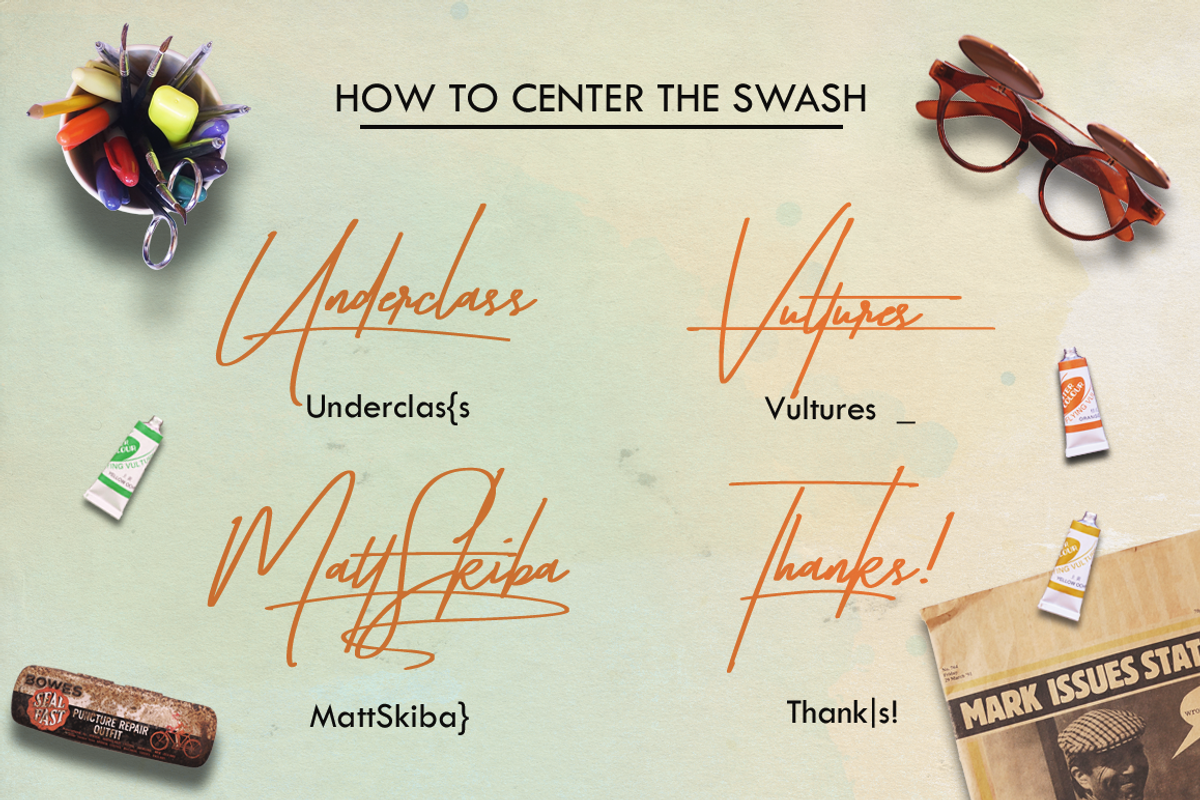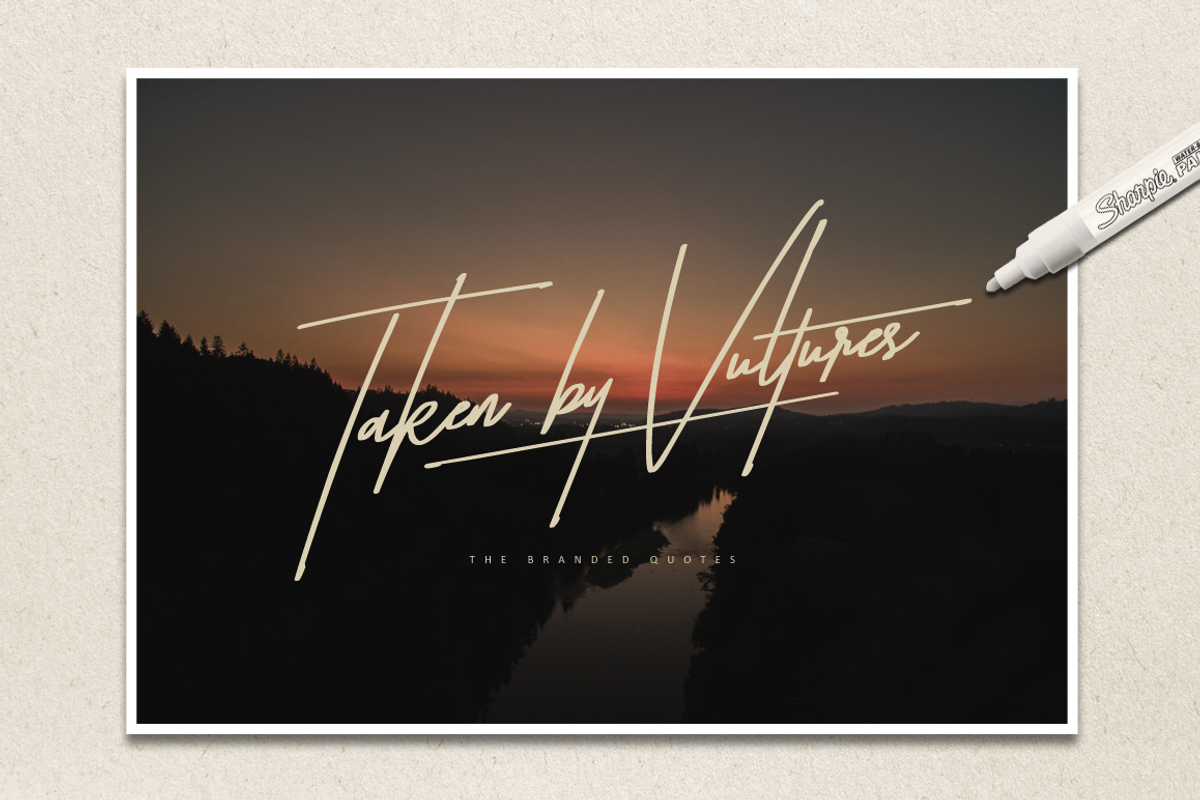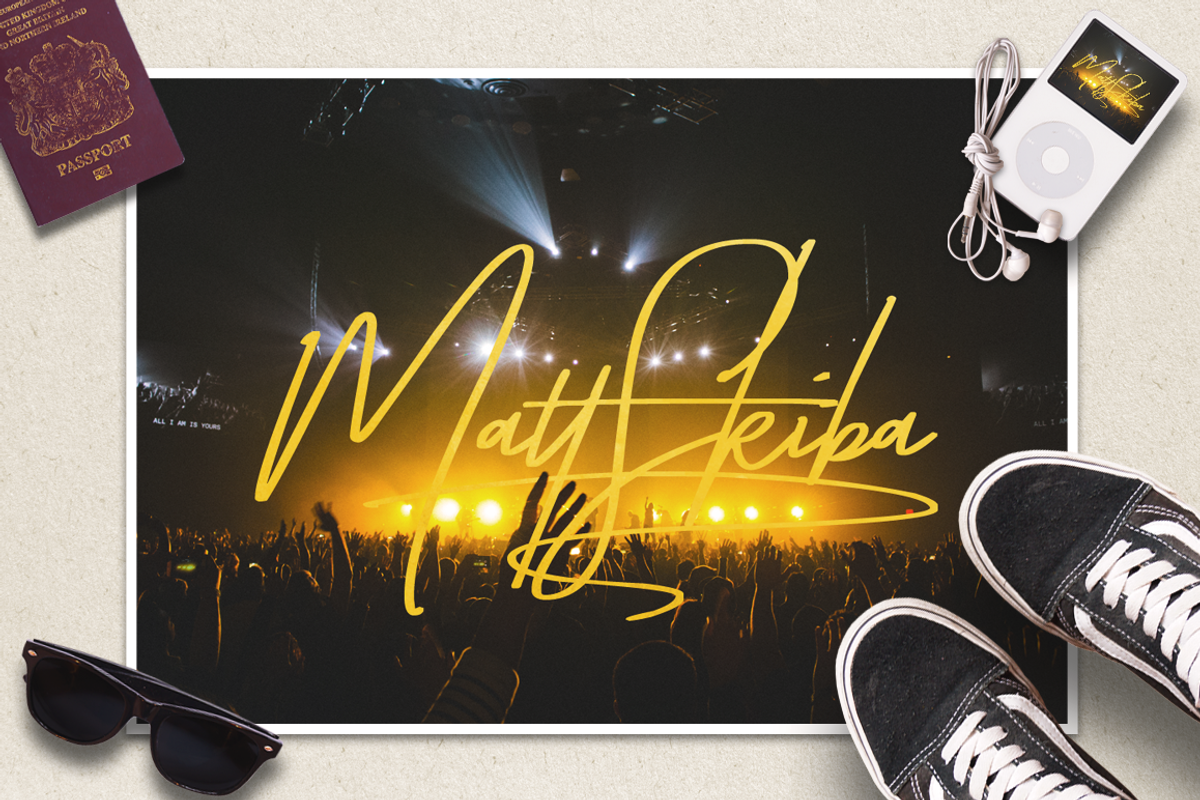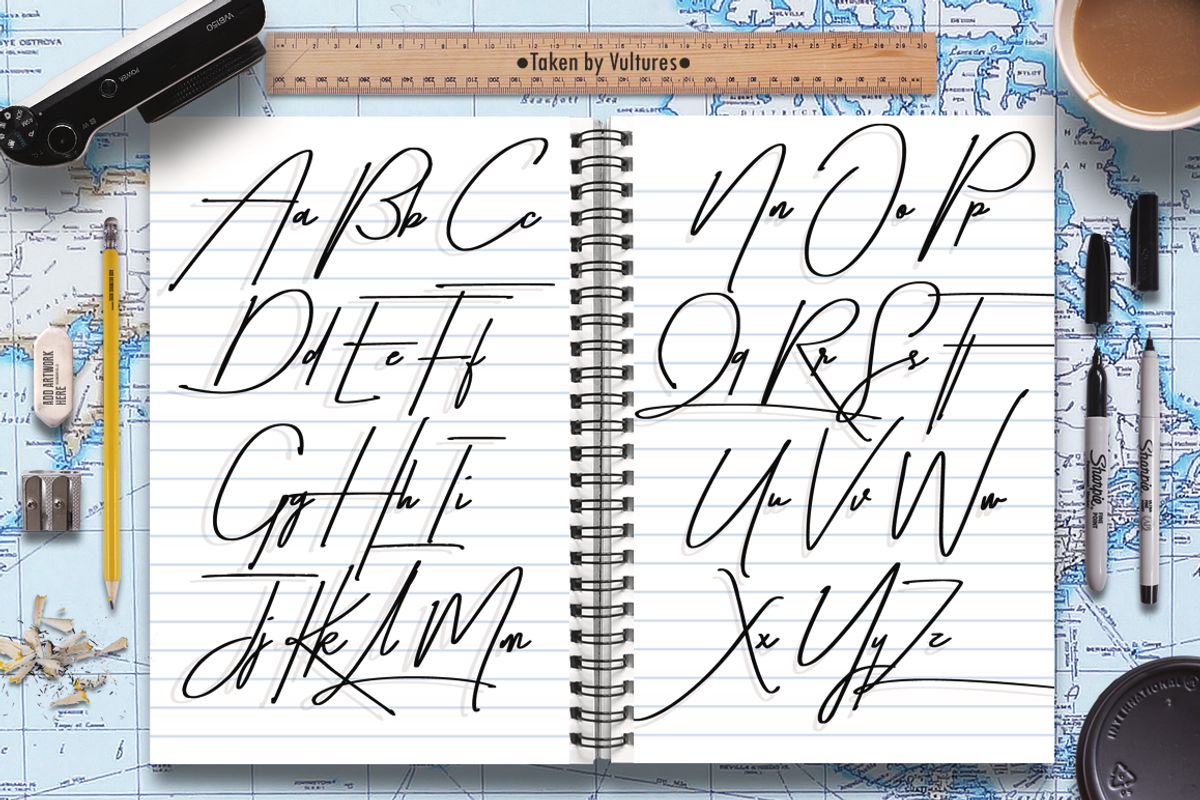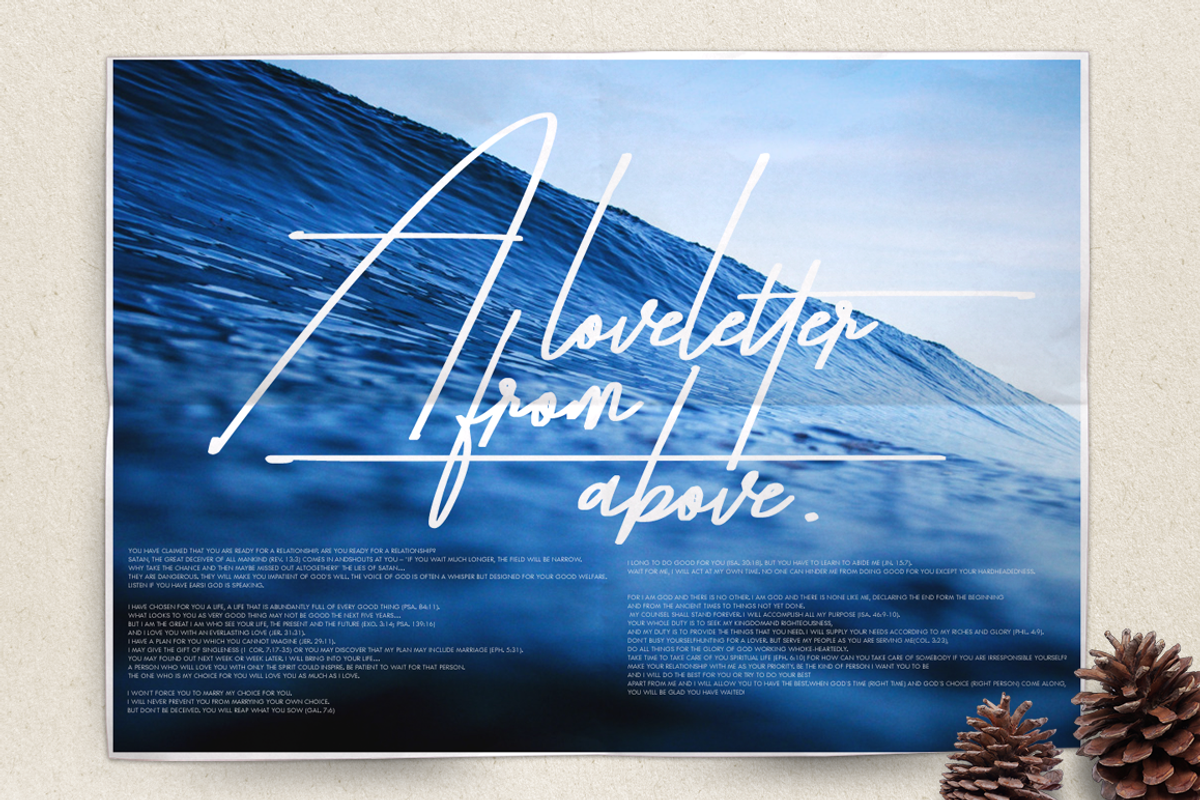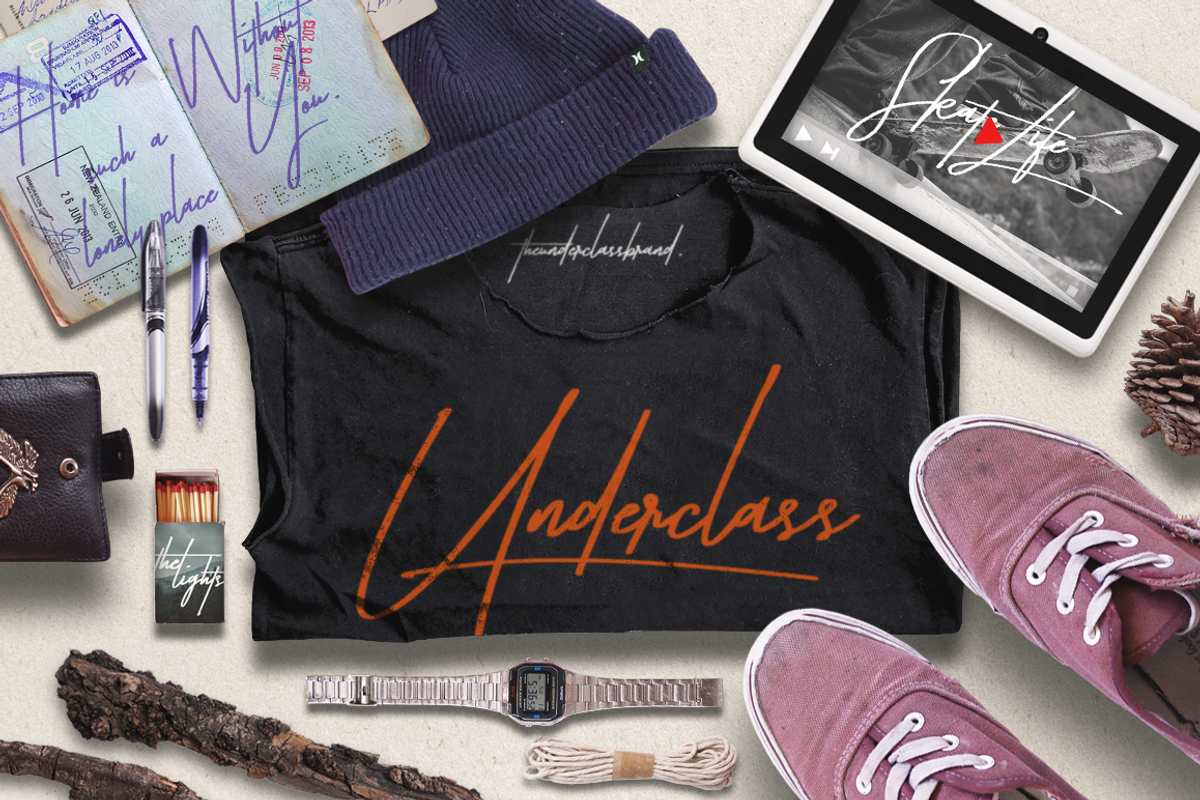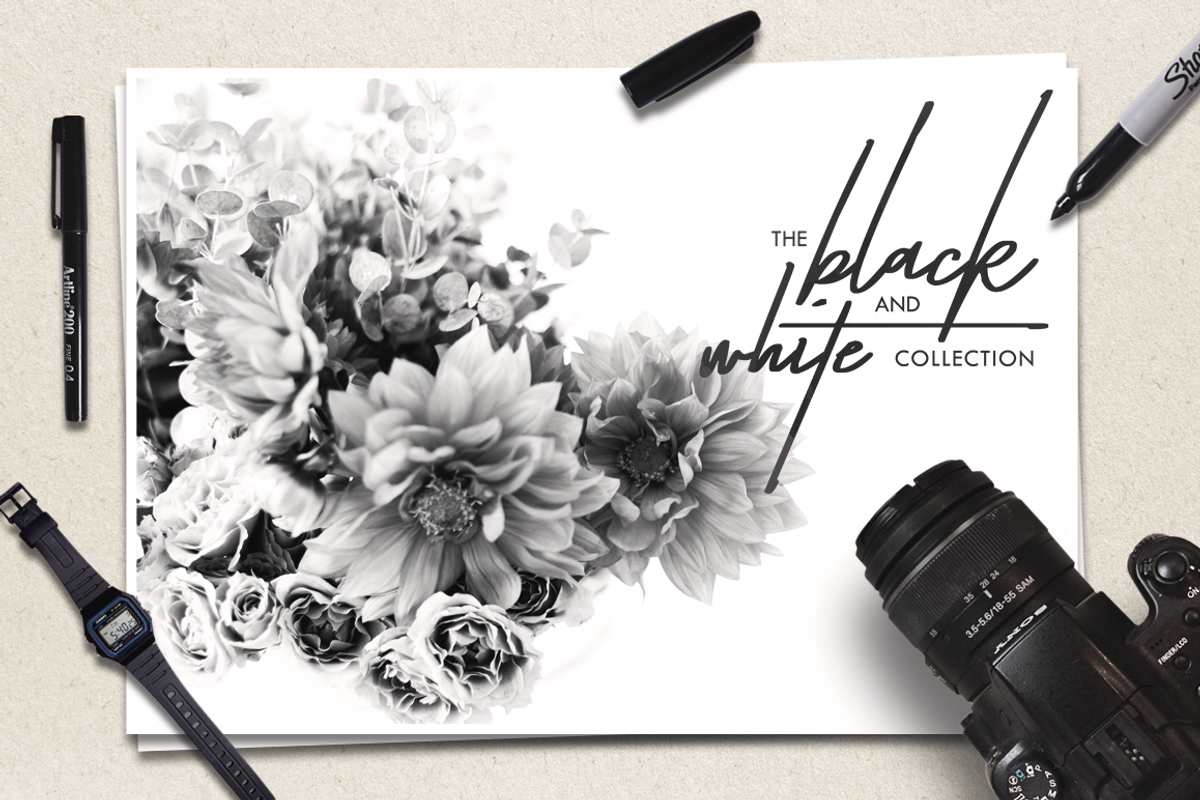
Taken By Vultures (Script)
Taken By Vultures (Script) by Vultures (Script), a Script Font by The Branded Quotes is a font selected for branding, posters, packaging, typography.
- Includes: Taken by Vultures - gives you the uppercase, lowercase, punctuation, numerals, a ligature and alternates of the font.
- Don't forget to use the swashes found on some of its punctuation!
- Taken by Vultures Alternates - the combination of the lowercase regular and some alternates which makes the font more unique!
Why Taken By Vultures (Script) is worth a look
Taken By Vultures (Script) by Vultures (Script), a Script Font by The Branded Quotes fits naturally into Branding, posters, packaging, typography.